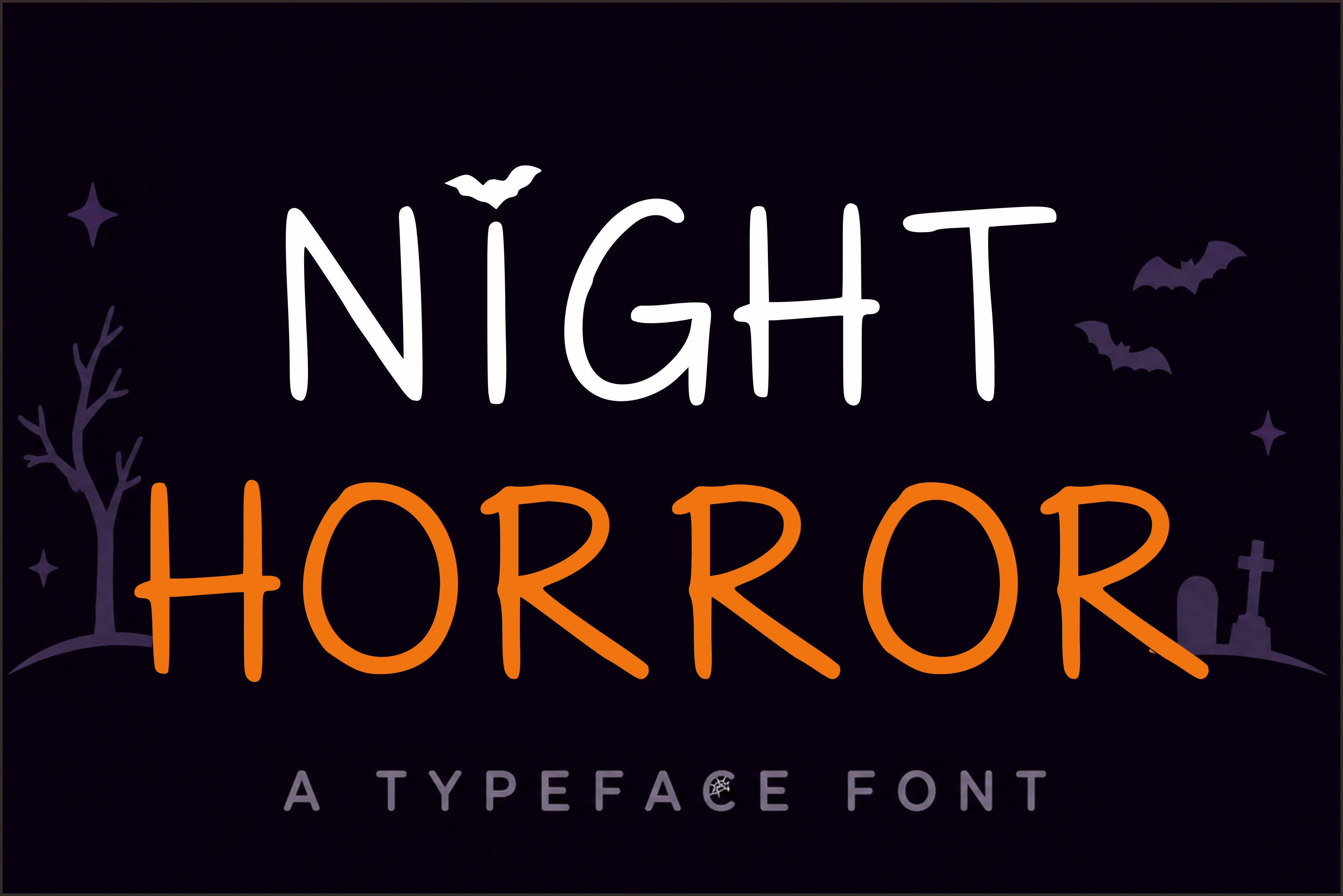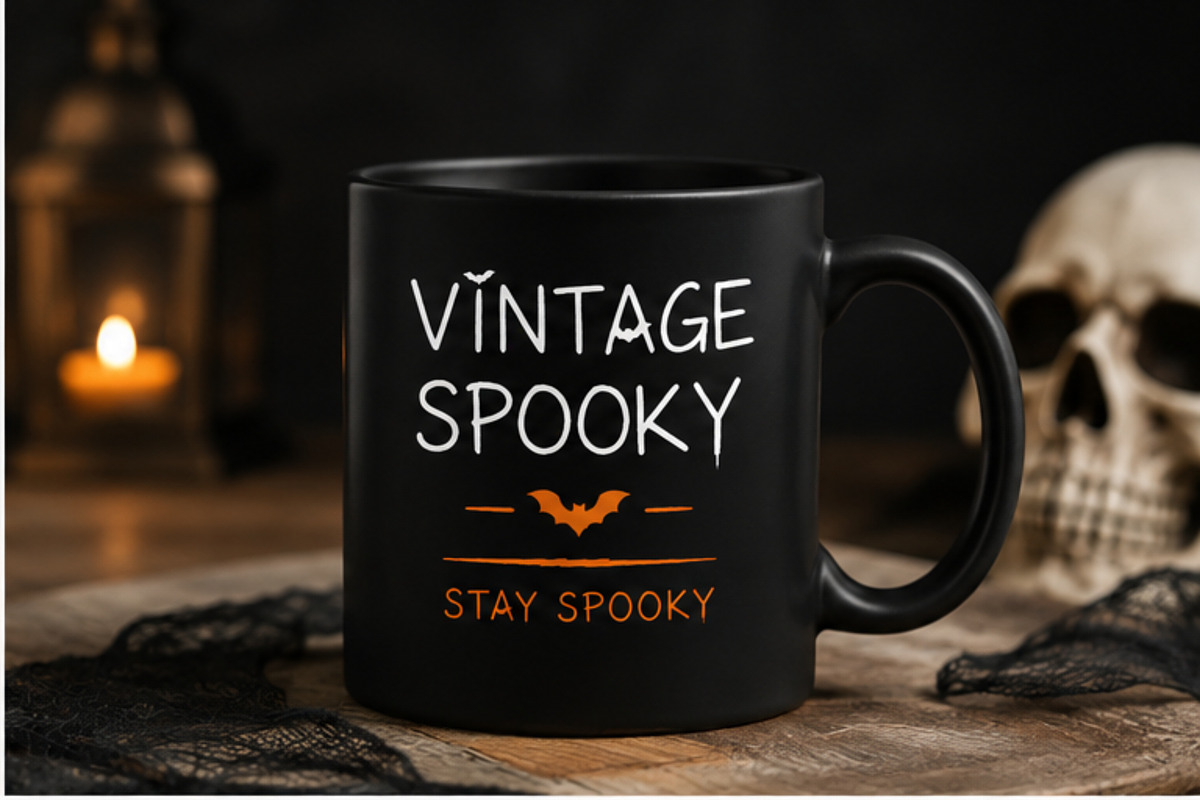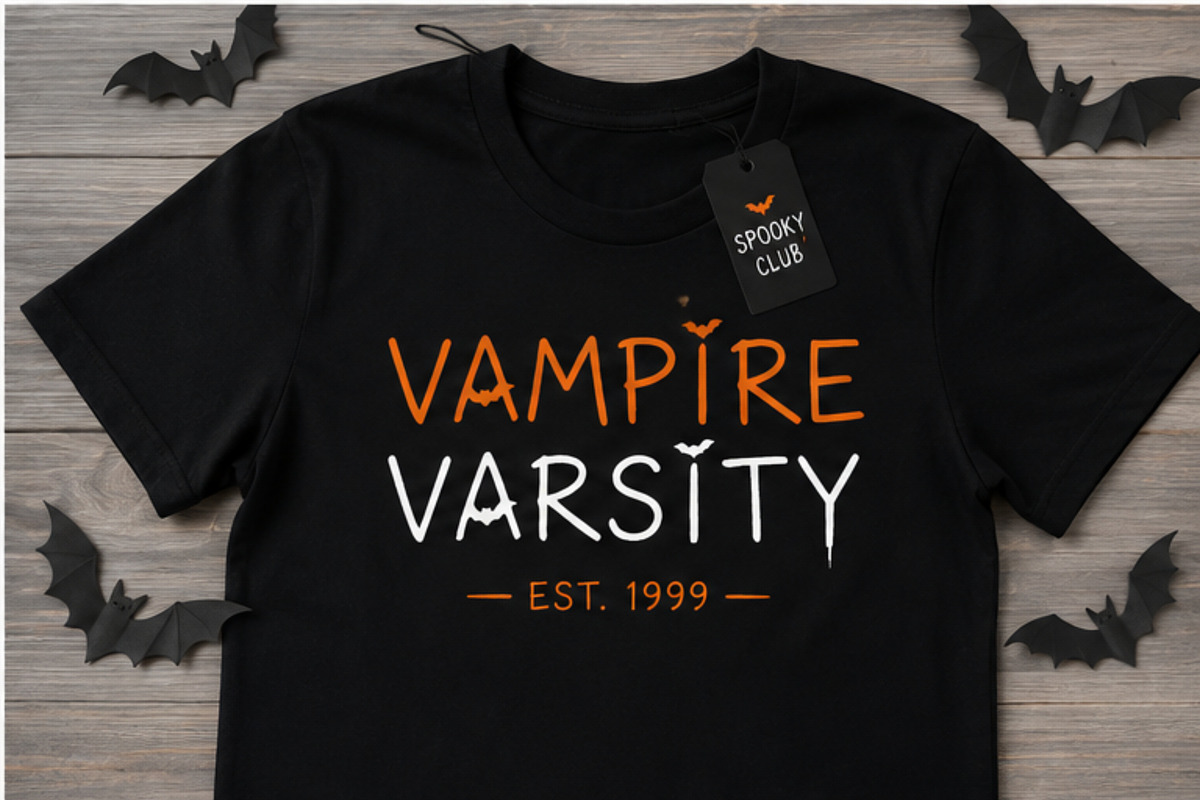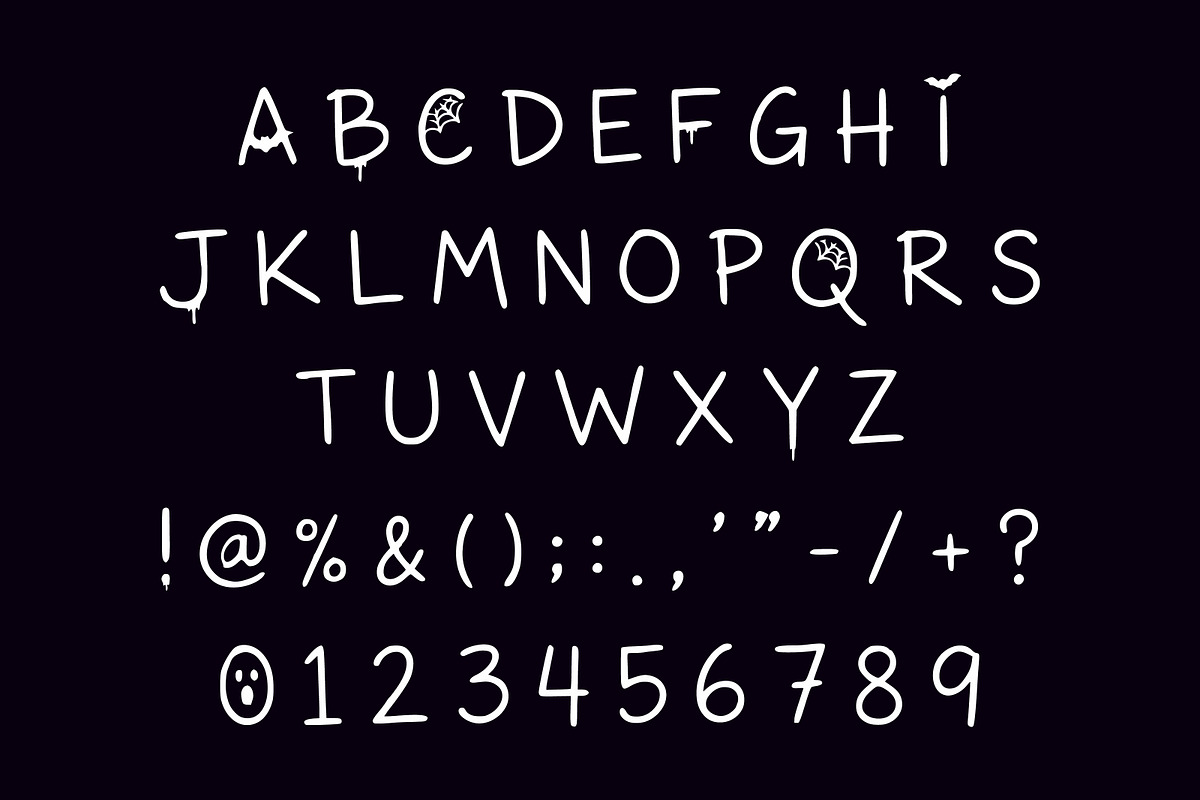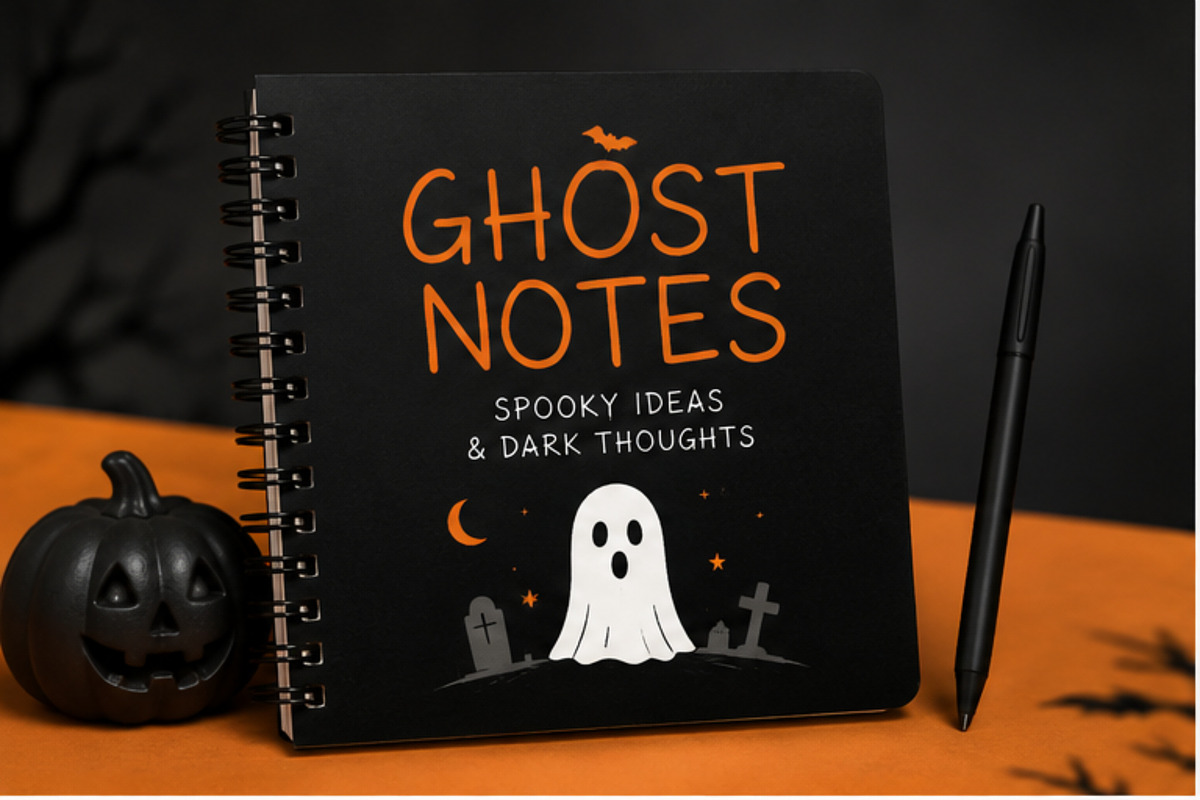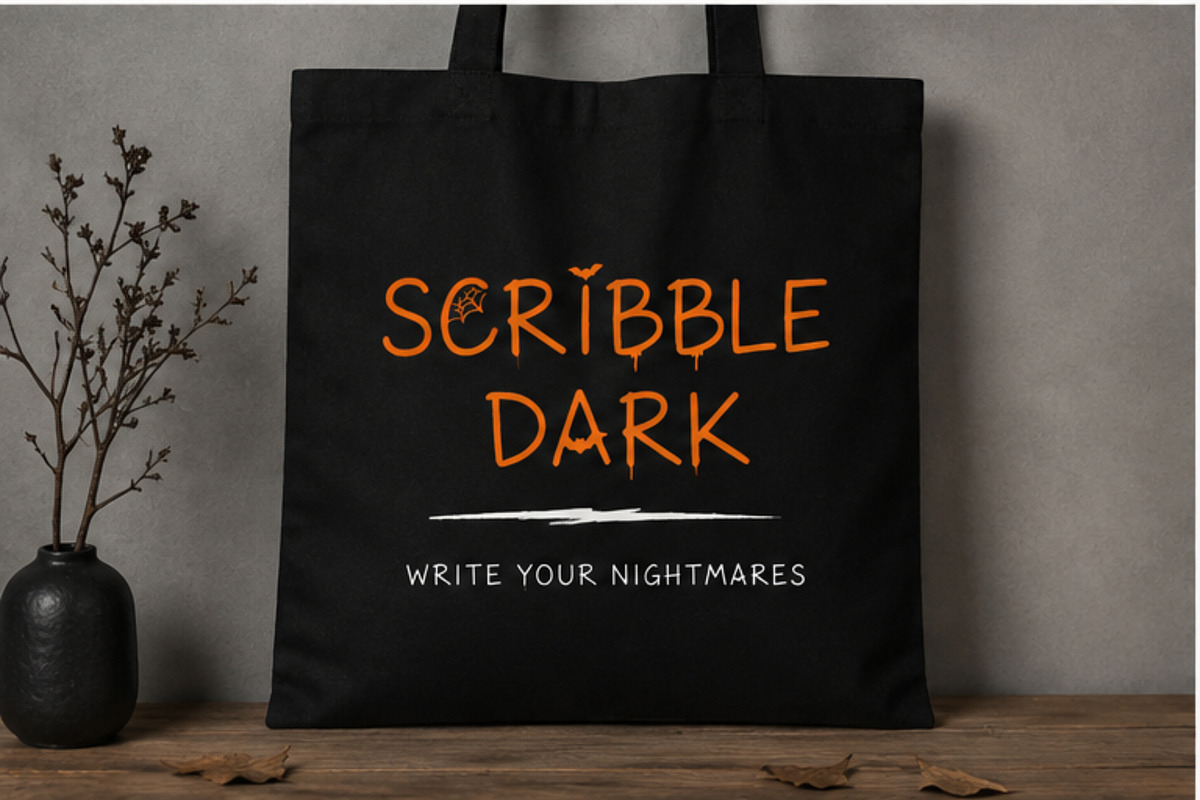
Night Horror - Handwritten Font
Night Horror is a spooky handwritten display font created for designers who want to add a mysterious, creepy, and playful Halloween atmosphere to their projects.
With its irregular hand-drawn letterforms and subtle horror-inspired character details, Night Horror works perfectly for Halloween artwork, horror posters, haunted house designs, spooky branding, apparel, stickers, invitations, packaging, and digital graphics.
The font combines a fun handwritten appearance with a dark horror aesthetic, making it versatile for both scary and playful Halloween designs.
Halloween posters & flyers
Horror movie-inspired designs
Haunted house graphics
Halloween party invitations
T-shirts & apparel
Stickers & labels
Cricut & cutting projects
Sublimation designs
Logos & branding
Greeting cards
Posters & merchandise
Packaging & product labels